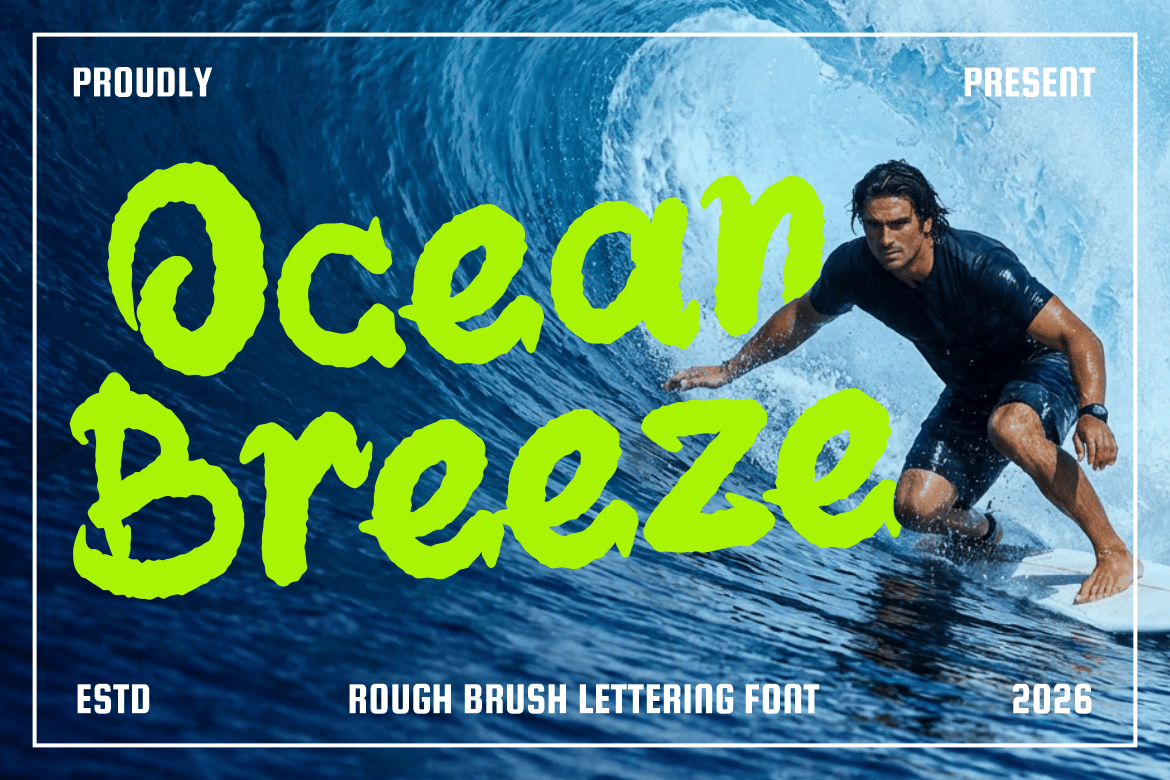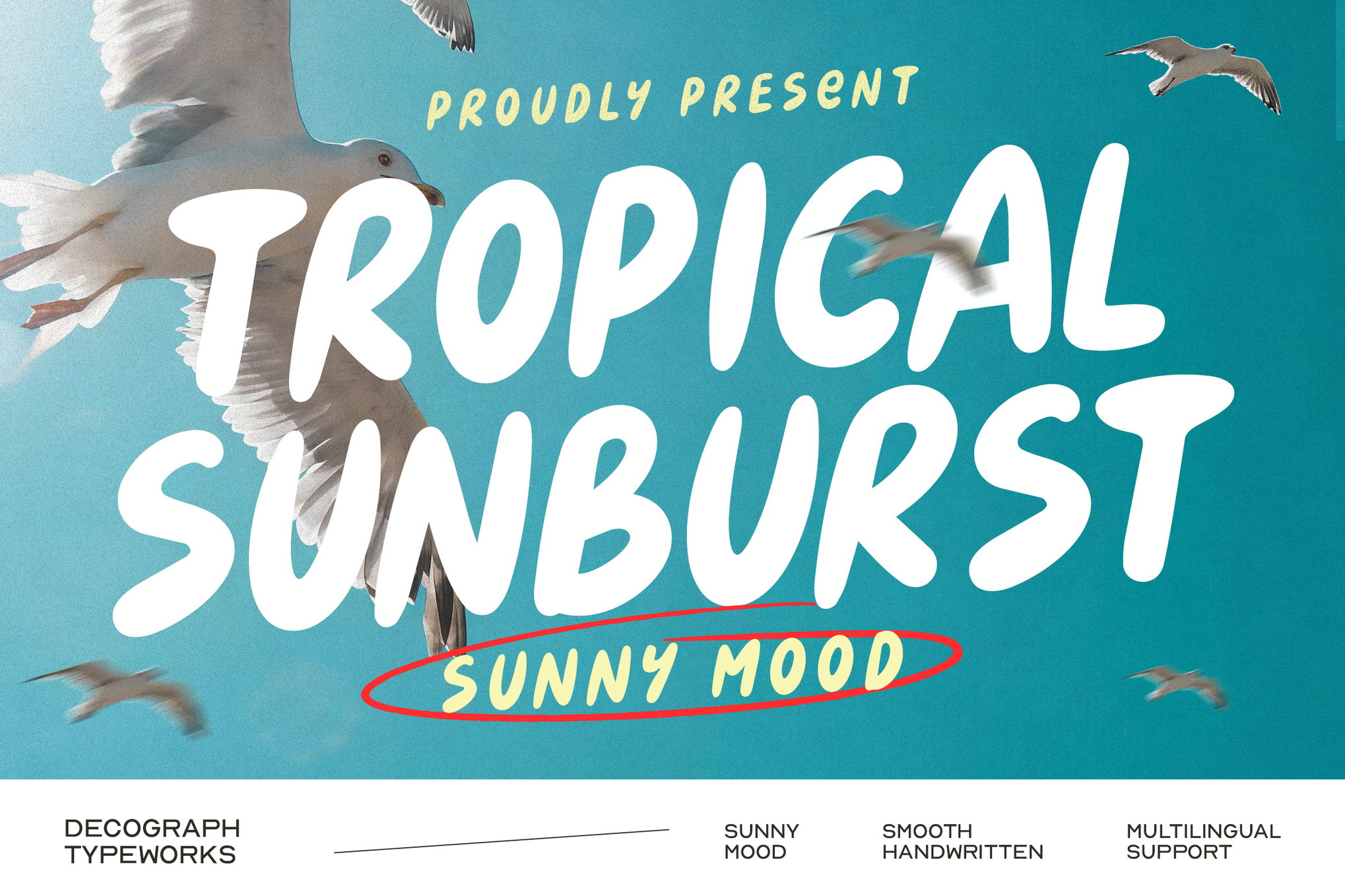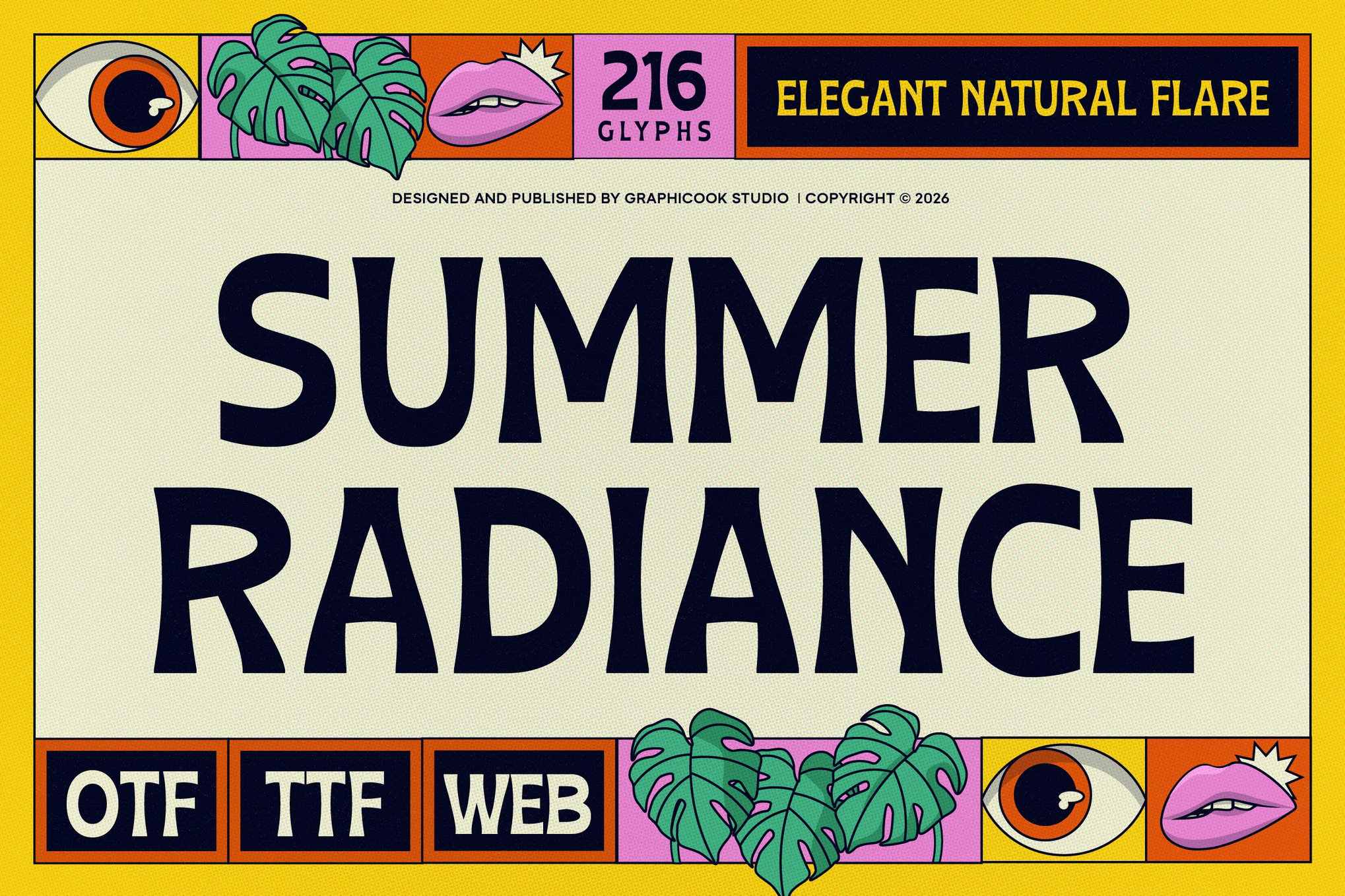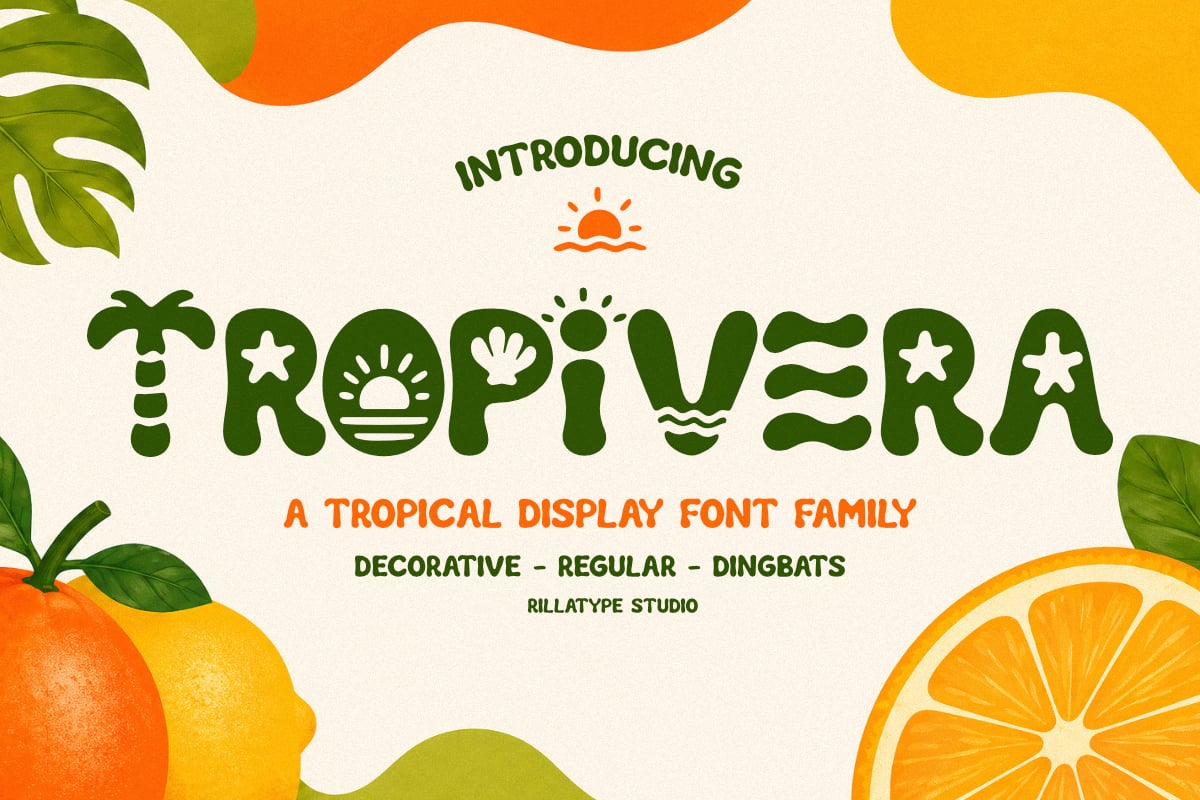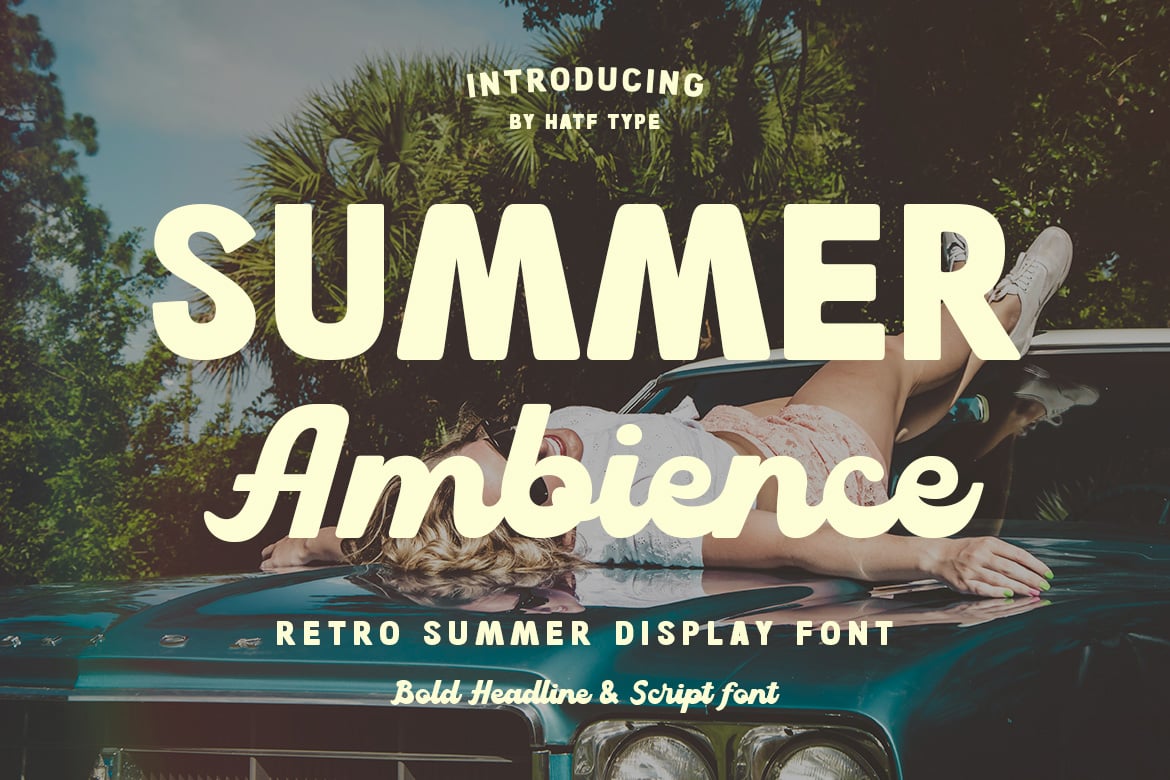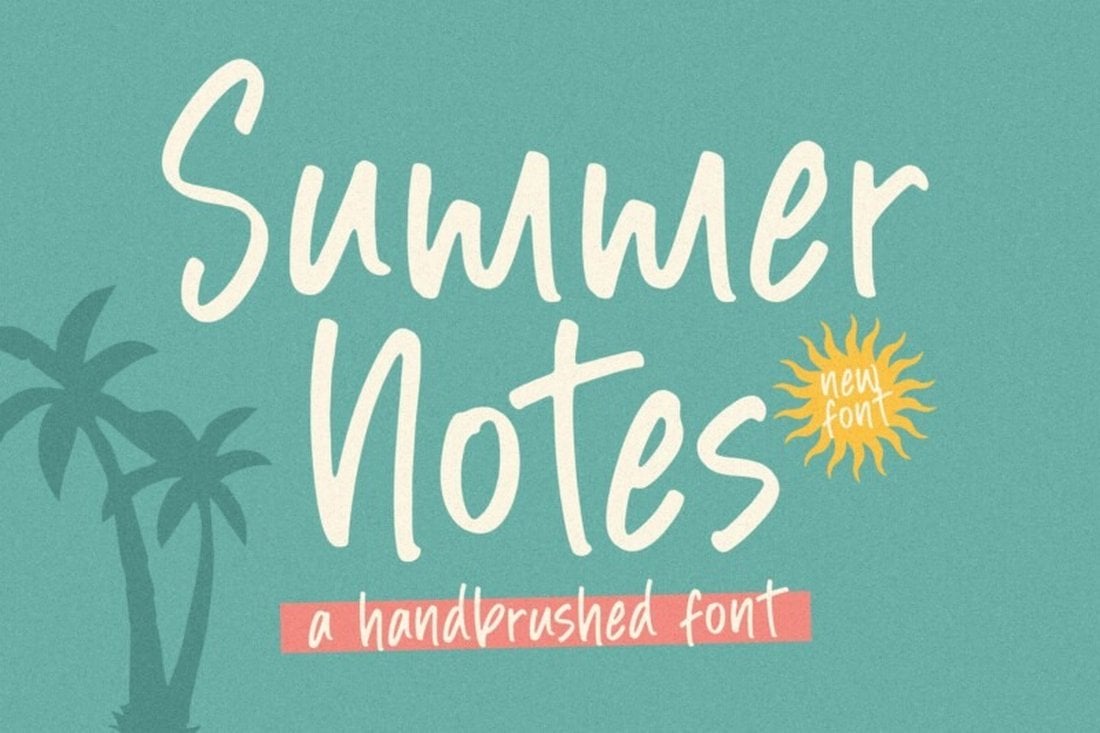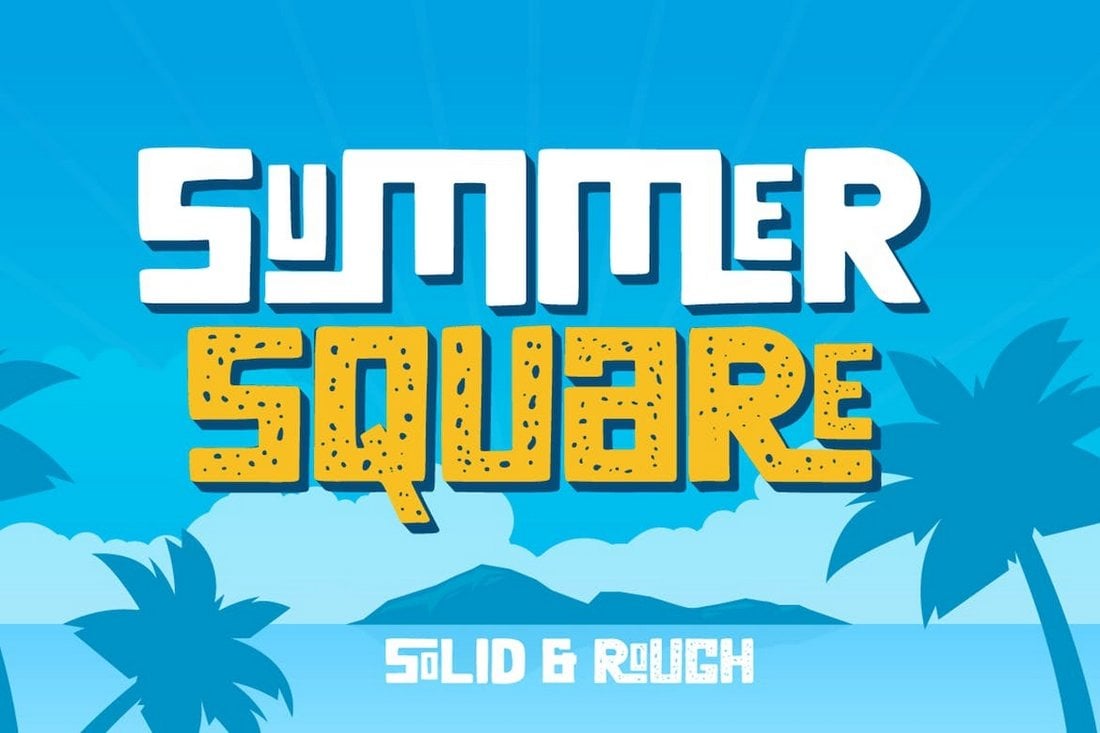
30+ Coolest Summer Fonts (Free, Fun Summer Vibes)
Finding a font with a summer vibe is the key to creating designs that encapsulate the same warm and breezy spirit of the season. We’ll help you find that perfect font with this collection of summer fonts.
We handpicked a collection of summer-themed fonts that have the same fun-filled, carefree, and playful vibes of everyone’s favorite season. These fonts are ideal for everything from beach party invitations to seasonal sale flyers, social media posts, cool t-shirts, and so much more.
They will definitely help capture the essence of summer to make your designs look much more energetic and exciting.
Ocean Brezze – Rough Brush Summer Font
Ocean Brezze is a summer-themed font that infuses designs with coastal energy, featuring bold, hand-painted strokes and lively movement akin to flowing water. Perfect for logos, posters, and social media titles, it adds a sporty, carefree vibe to surf shops, beach cafés, and travel brands. Its rough brush style offers adventurous character and bold impact.
Tropical Sunburst – Summer Handwritten Font
Tropical Sunburst is a lively handwritten font that captures the carefree spirit of summer. With its rounded shapes and flowing strokes, it adds a warm, playful touch to any design. Ideal for summer campaigns, beach branding, and travel themes, it supports multiple languages and includes versatile file formats for easy integration into your projects.
Summer Radiance – Summer Themed Font
Summer Radiance is a vibrant display font inspired by summer’s energy and retro graphic styles. With strong, playful letterforms, it’s ideal for lively headlines and projects needing a cheerful touch. Perfect for posters, branding, and social media, its versatile formats (OTF, TTF, WOFF, WOFF2) ensure it fits seamlessly into any creative project.
Tropivera – Creative Tropical Summer Font
Tropivera is a playful and vibrant font inspired by tropical vibes, perfect for adding warmth and personality to your designs. With bold, rounded shapes and decorative elements, it offers creative flexibility for expressive headlines, readable text, and fun icons. Available in multiple styles, Tropivera is ideal for standout branding, custom logos, and eye-catching visuals.
Summer Ambience – Retro Summer Font
Summer Ambience captures the sunny joy of summer with its bold, playful style and nostalgic, retro character. Perfect for beach party invites or summer product labels, it combines smooth curves and eye-catching details. This versatile font includes symbols, numbers, ligatures, and multilingual support, compatible with both Mac and Windows across various design applications.
Retro Summer – Bold Retro Script Font
Going big and bold with your designs is what summer is all about. That’s why we think this font will fit just right with any of your summer-themed designs. It has that perfect summer vibe with its bold and curvy script lettering. The retro look is just a bonus that comes with it. The font has all uppercase and lowercase letters with alternates and ligatures.
Island Life – Summer Surf Font
This font takes inspiration from the 1970s surf culture and adds a bit of summer vibe to each letter to create a unique look, unlike any other font on our list. It has that groovy retro look as well. The font is ideal for all summer-style fun and playful designs. It’s especially great for big poster titles and summer t-shirts.
Bigger Summer Fest – Cool Bubbly Font
A stylish bubble-style font with a summer-themed look. This font takes the best of both font styles to create a cool and stylish vibe that is ideal for various summer designs. The retro look of this font mixed with the chunky letters will surely make your typography stand out.
Sunburned Tropic – Summer Brush Font
This is a brush-style font with a summer-themed letter design. It has a calm and breezy look with its brush-textured characters that will give a very relaxing look to your typography designs. It’s especially great for crafting packaging designs, party flyers, and even advertisements for travel and vacations.
Long Summer- Retro Summer Font
Long Summer is another unique font with a retro-style letter design. According to the designer, it takes inspiration from groovy summer-themed designs from the 60s and the 70s. The font certainly has a style of its own that radiates nostalgia and classic typography designs.
Summer – Free Handwritten Font
This is a free font you can use to craft beautiful summer-style titles and headings for your design projects. It features a handcrafted letter design with an outstanding personality. You can use it for free with personal projects.
Summer Notes – Free Handbrushed Font
Summer Notes is another free font you can download to create typography designs with a handwritten look and feel. This font is perfect for adding a personal touch to your illustrations and graphic designs. The font is free for personal use.
Summer Vacation – Cool Handwritten Font
This font has summer written all over it. The font has a cool handwritten-style letter design with a relaxed and fun vibe. It’s perfect for crafting titles for your summer event posters, beach party flyers, vacation tours, and much more. It includes ligatures and extensive multilingual support.
Summer Shine – Sharp Brush Font
A sharp summer font with a fresh look. This font features bold brush-style letters with sharp strokes to give that edgy look to your trendy summer designs. It’s especially great for promoting summer-themed clothing lines, seasonal offers, promos, and more. It’s perfect for social media posts as well.
Summer 0f 76 – Retro Multi-Line Font
A summer font collection is not complete without a retro-style multiline font. This one has that same groovy design taking inspiration from the neon signs from the 1970s. It’s perfect for crafting typography for retro-themed summer posters, party flyers, and more with a nostalgic feel.
Summer Flash – Playful Summer Font
At first glance, you can see this font is designed just for beach parties and fun summer events. It has a playful letter design with a quirky look that will instantly make your designs look lively and energetic. The font comes in two different styles too.
Summer Diary – Cute Summer Font
Summer Diary is another summer-themed font with a cute and adorable design. It has a set of smooth letters that are ideal for designing product labels and packaging designs with a feminine look. It’s great for posters and greeting cards as well. The font is available in regular and bold styles.
Summer Peach – Free Summer Font
Download this font for free to create cute and feminine titles and heading designs. It has a unique hand-crafted letter design with both uppercase and lowercase letters. The font is free for personal use only.
Summer Miracle – Free Handwritten Font
When it comes to promoting fashion designs, a handwritten font is a common choice used by many brands and businesses. This free font has the perfect look for such design projects. And it’s free to download.
Forever Summer – Stylish Font Duo
Forever Summer is a beautiful pair of summer fonts that comes with two distinct styles. One font has a handwriting style marker brush letter design while the other has a natural flowing script letter design. When paired together, these two fonts will make your typography shine brighter than the summer sun.
Summertime – Thin Casual Script Font
Summertime is a casual script font that features thin line letters. It’s a different style of font that blends a mix of elegant and informal design elements to create a unique look for your typography. The font will make your invitations, social media posts, and packaging designs look much more original.
Summer Break – Signature Style Font
This font also features a signature-style script handwriting letter design. This style of font is ideal for designs that require a personalized look and feel. It’s especially a great choice for greeting cards, travel-themed postcards, party invitations, and more.
Beach Hits – Playful Summer Font
If you’re working on a flyer design for a beach party, don’t forget to grab this font and use it to craft the coolest-looking titles for your invitations. The font has a playful and fun letter design that’s perfect for all kinds of summer-themed designs, including posters, food menus, t-shirts, and more. It has uppercase and lowercase letters.
Summer Square – Quirky Summer Font
The funny-looking square-shaped letter design makes this font very similar to the font used in the popular cartoon Spongebob Squarepants. This makes it a great choice for making playful typography designs for your summer designs as well as for children’s designs. The font comes in regular and a rough textured version as well.
Nice Summer – Free Decorative Font
This font comes with a creative textured letter design that has a windy and breezy vibe. The font is free to download and you can use it with your personal projects. It’s ideal for your summer event and party flyers.
Summer Festival – Free Summer Font
Another free summer font with a fun and quirky design. This font also comes with some decorative characters that allow you to experiment with different looks for your titles. It’s free for personal use.
MALIBU – Carefree Handwriting Summer Camp Font
Malibu is a hotspot for summer vacations and this font takes inspiration from the popular region for its casual and carefree handwriting letter design. While it’s a perfect font for all types of summer-themed designs, it’s especially a great choice for designing signage, flyers, and banners for summer camping trips too.
Summer Tropics – Creative Decorative Font
This font features a creative design with uniquely decorated letters. It has big and chunky characters with its own unique handwriting style. The font includes all-caps letters that are most suitable for designing big titles for posters and banners as well as for social media posts.
Sunroof & Summer – Fun Font With Ligatures
A fun-filled summer font that features a set of special ligatures for crafting unique typography designs. The font also has multilingual support as well as uppercase and lowercase characters. It’s perfect for kids-themed designs too.
Ocean – Hand Writing Summer Font
Ocean is a beautiful hand-writing summer font that has a unique squiggle and wavy letter design. It’s made to mimic the feel of ocean waves. This makes the font a great choice for all your designs with summer, beach, and ocean themes.
Beachcomber – Handmade Summer Font
Another cool and creative summer font featuring a decorative retro-style design inspired by Tiki figures. This font is ideal for everything from product labels to badges, summer t-shirts, event posters, and more.
Summer Dream – Retro Font Duo
A creative font duo for all your summer-themed designs. It combines a thick sans serif title font with a rough textured handwriting-style font. These two fonts go quite well together for designing flyers, posters, and brand promos.